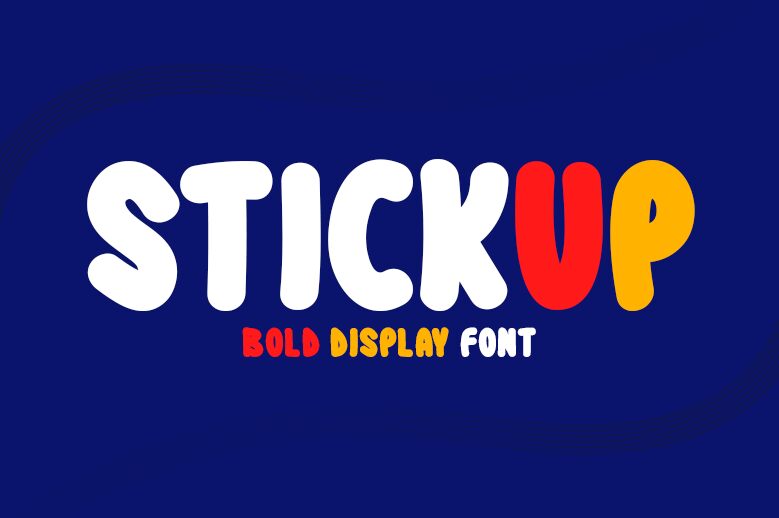
Stickup font by Md Shohail Bhuian is a condensed bold cartoon display font with a chunky modern appearance. Captivating and playful, it showcases smooth rounded lines of casual look while maintaining more professional side at the same time. Each character is thought through to bring the best possible impact into every design creation.
Any artwork requiring thickness could benefit from integrating this free display font. Think of comic books, magazines, and novelty newspapers as great publishing opportunities for it. Next come more lighthearted branding materials like business cards or product packaging. Stickup could also prove powerful on labels, stickers, book covers, posters & banners and in video editing too!